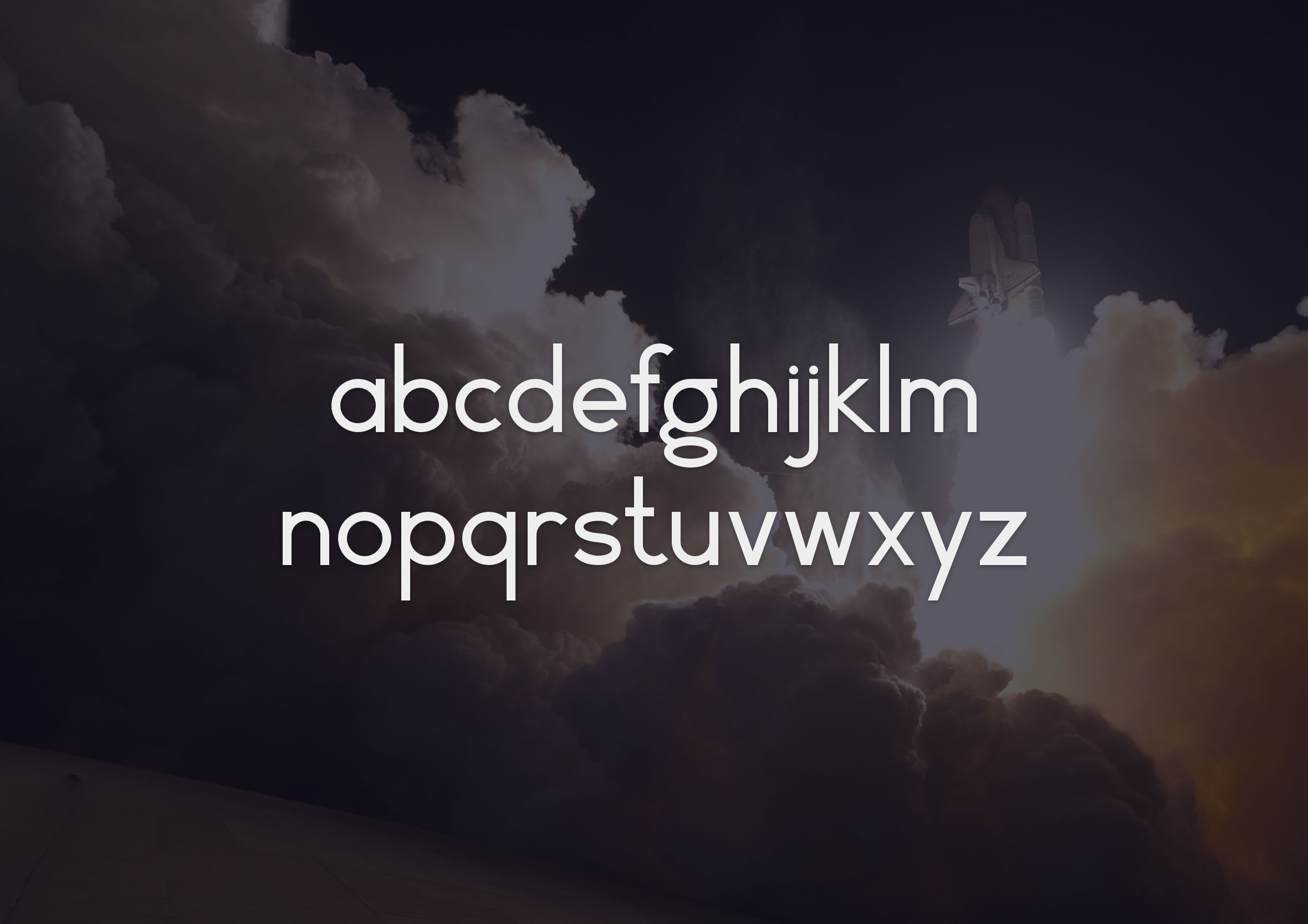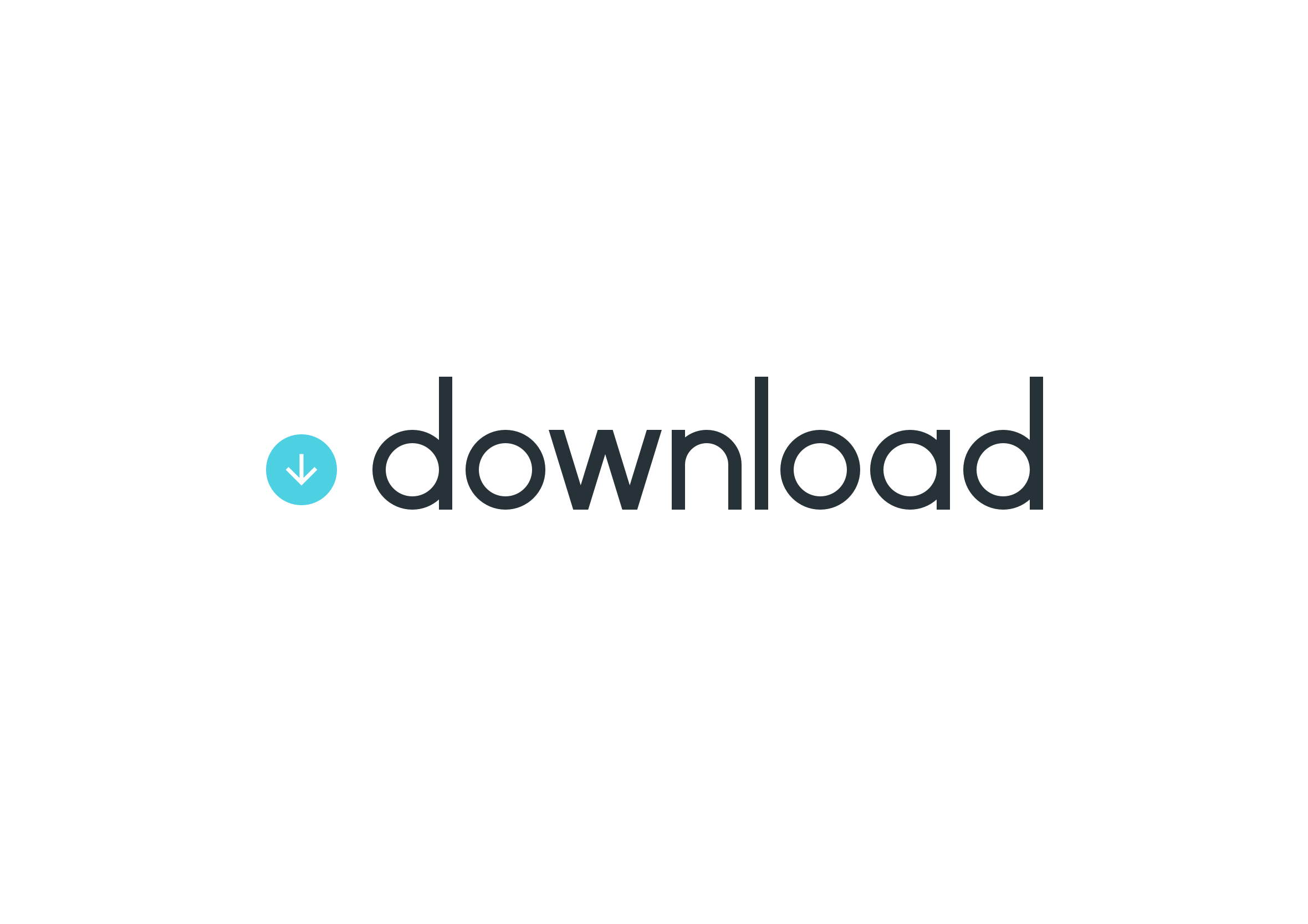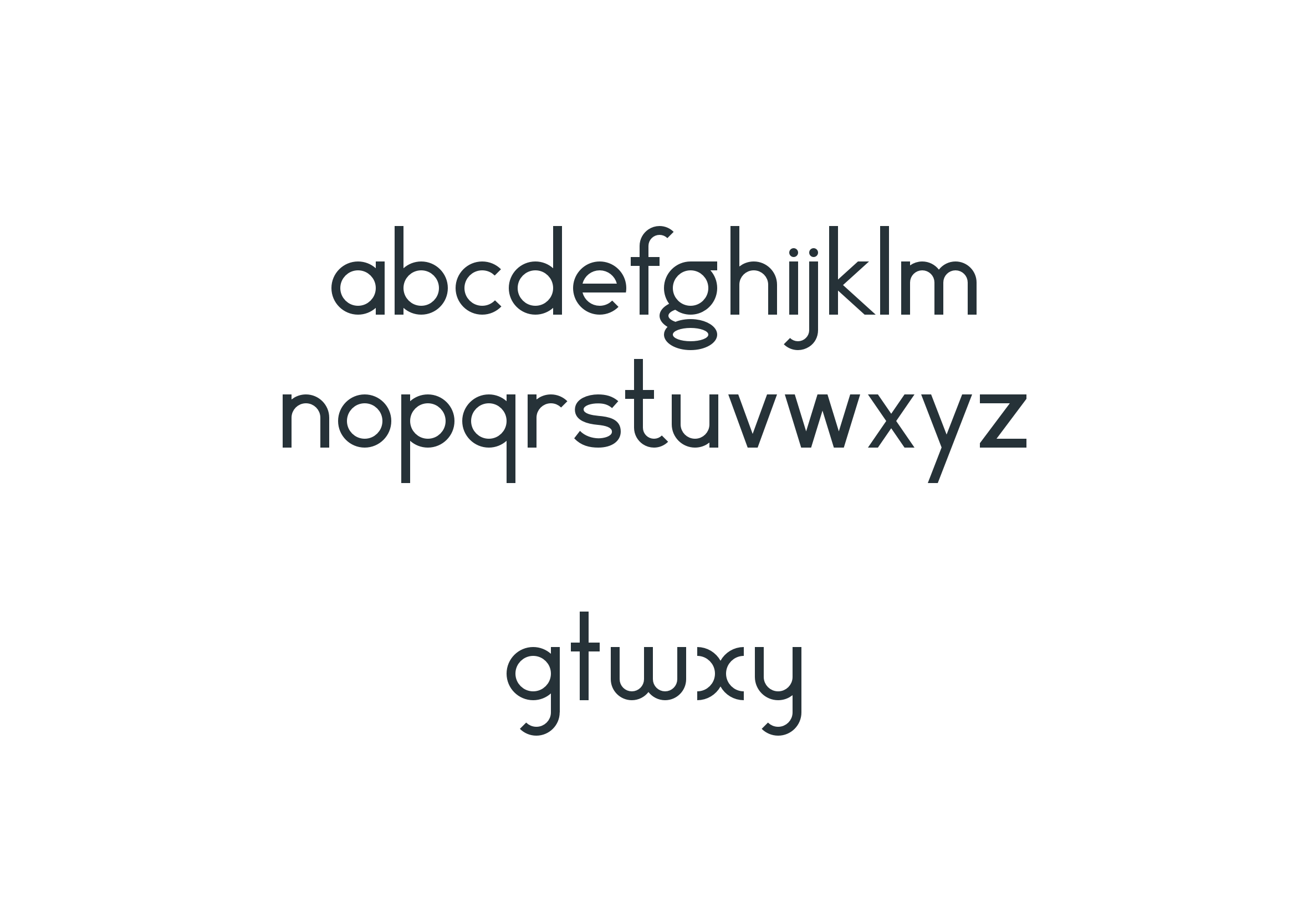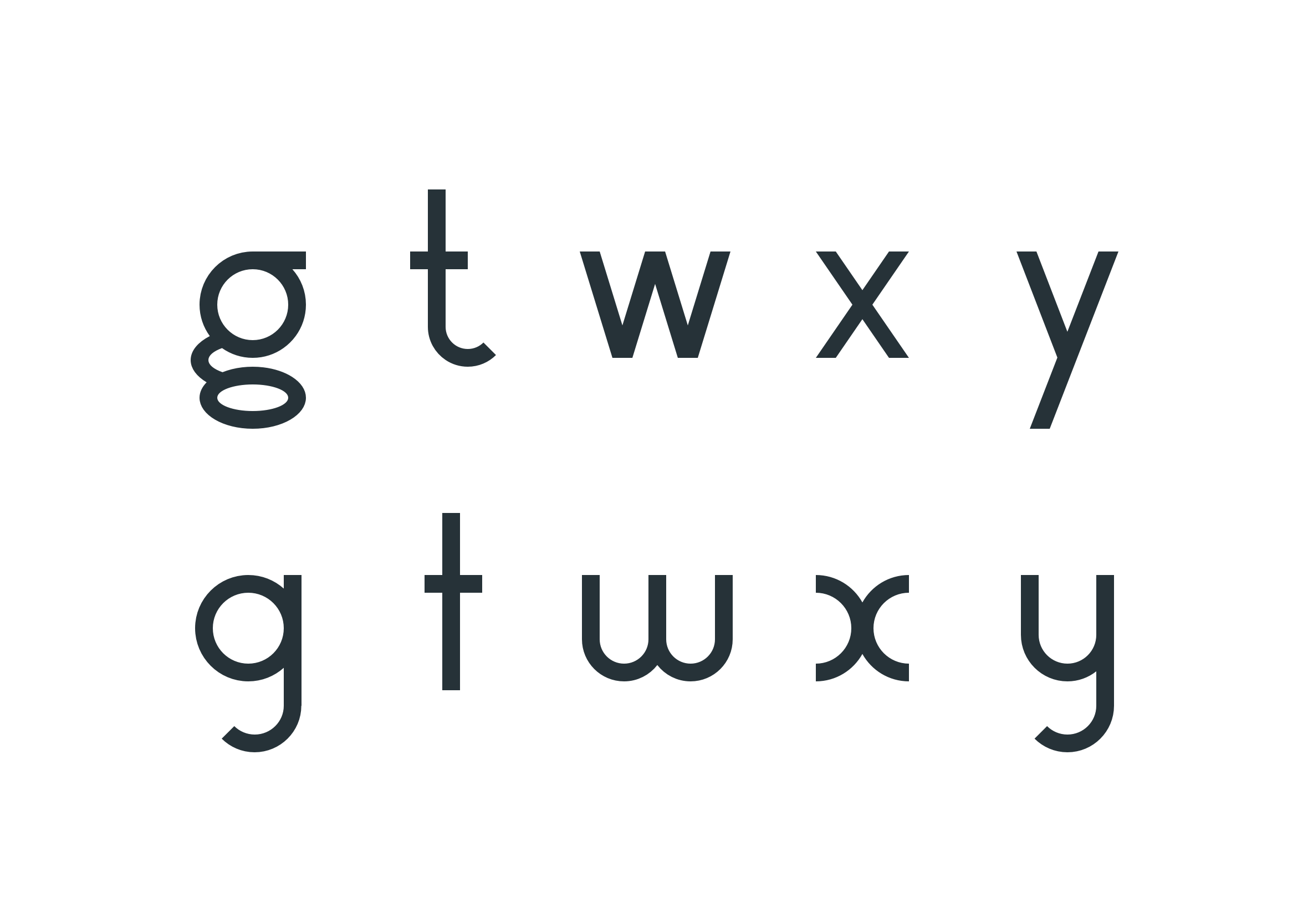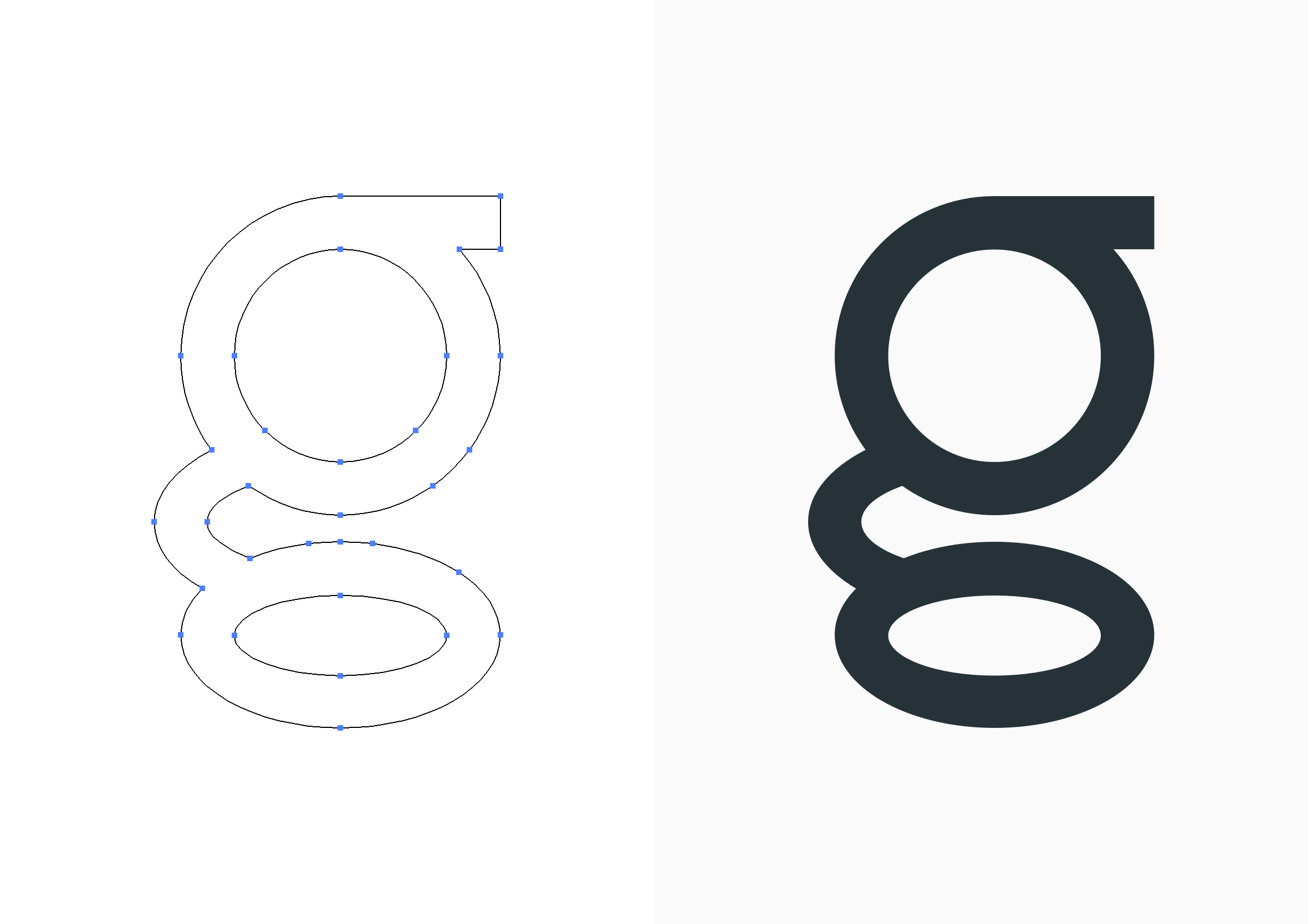
Self-initiated: Rich McNabb font
A free geometric vector font inspired by Herbert Bayer’s 1925 universal typeface, designed to build vector skills, grow my portfolio and give something back to the design community.
I wanted to build on Herbert Bayer’s 1925 experimental universal typeface and create a simple geometric vector font, making it publicly available as a free download. This had three goals: becoming more proficient with vector software like Sketch and Illustrator, building out my design portfolio, and giving something back to the design community.
Font with alternatives
The idea was to start with a basic alphabet and build out the font over time by adding numerals and symbols. As a starting point though, I’m pretty happy with where it’s heading.
Alternative letters
Experimenting with some simple typographic alternatives for some of the letters to help provide a more complete font and to give people with greater flexibility and options.
Lowercase g
I was happy with how the font was progressing and especially pleased with how the lowercase “g” turned out. The original version lacked personality so I pushed further and experimented with different concepts and treatments.